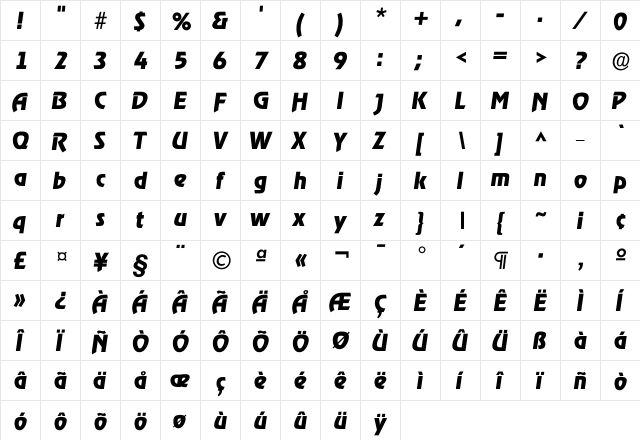
IRagtime Bold
Design Context for IRagtime Typeface
IRagtime takes a measured approach to typography — its balanced proportions and neutral character make it a reliable workhorse for both digital and print work. Its bold stroke weight gives it real presence on the page.